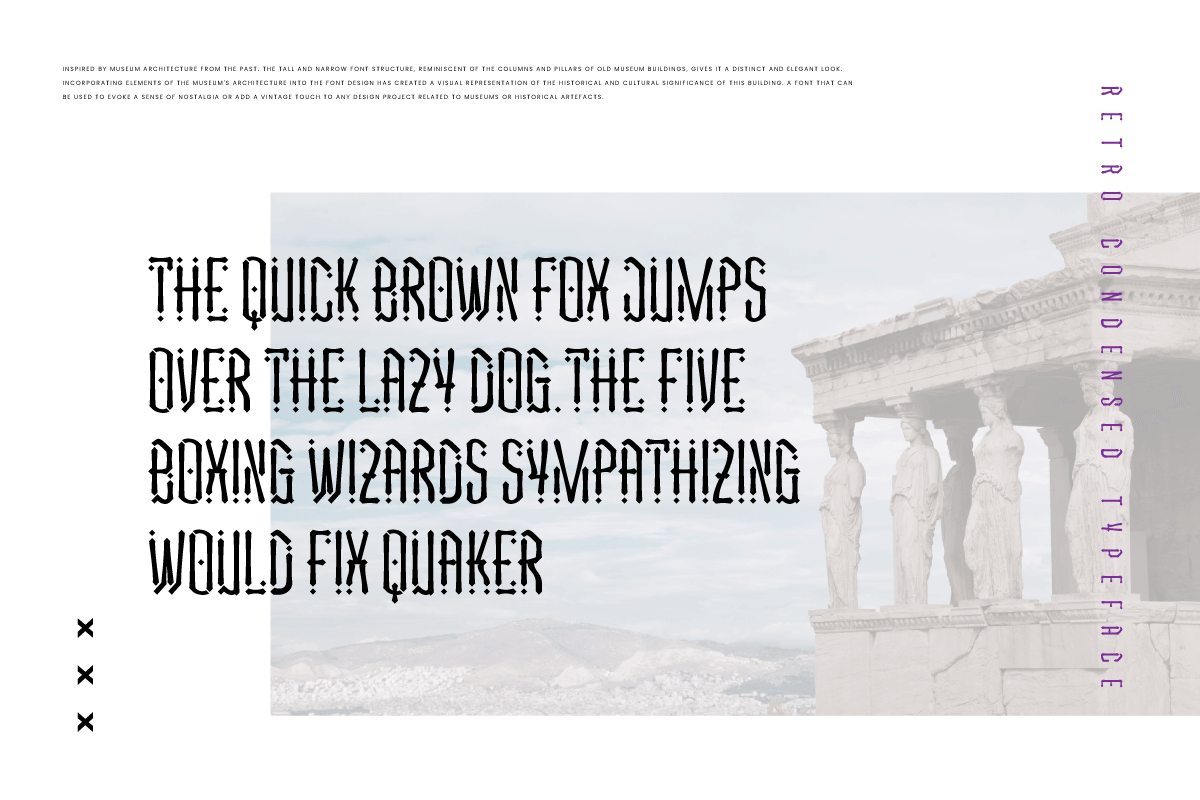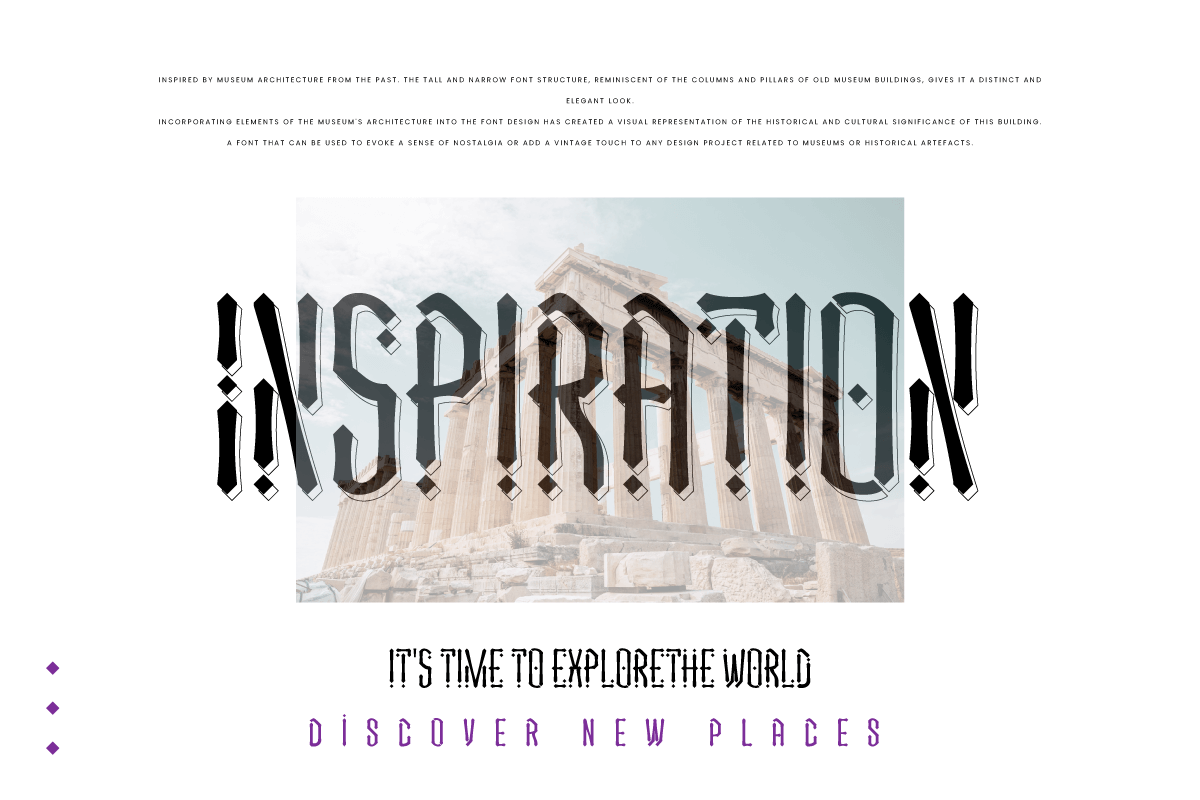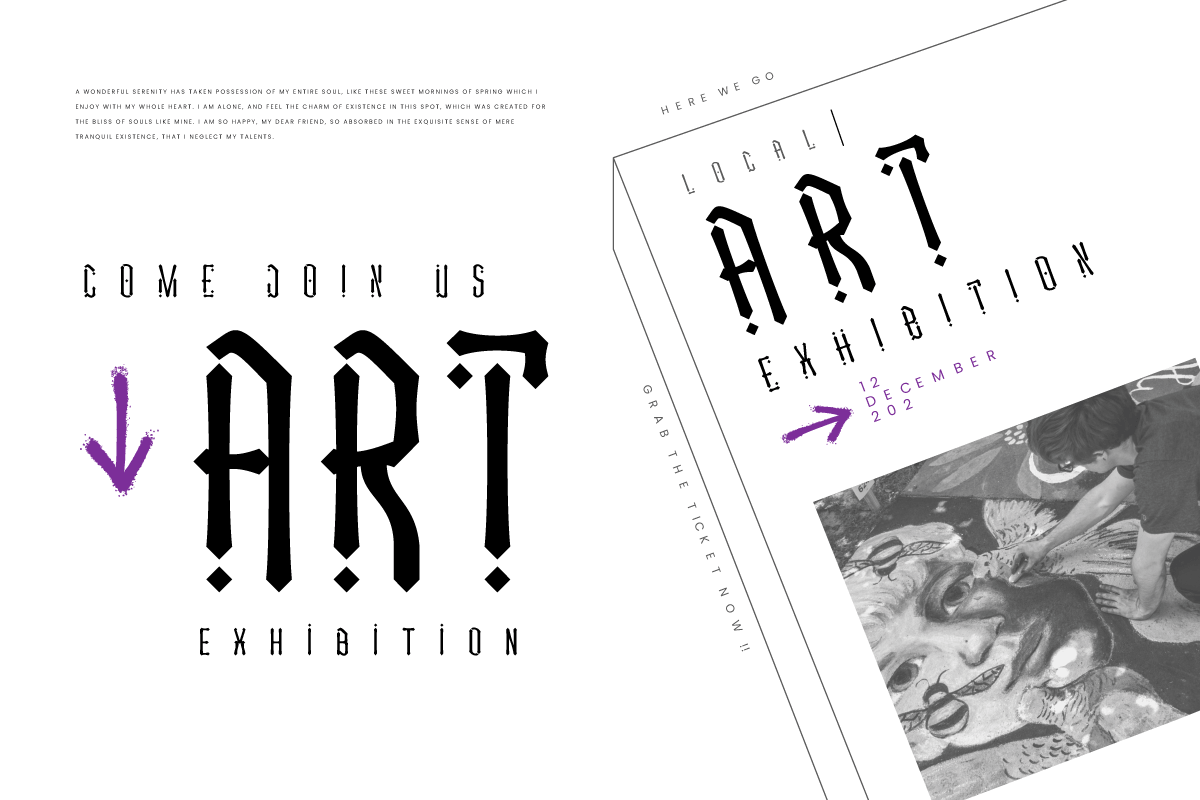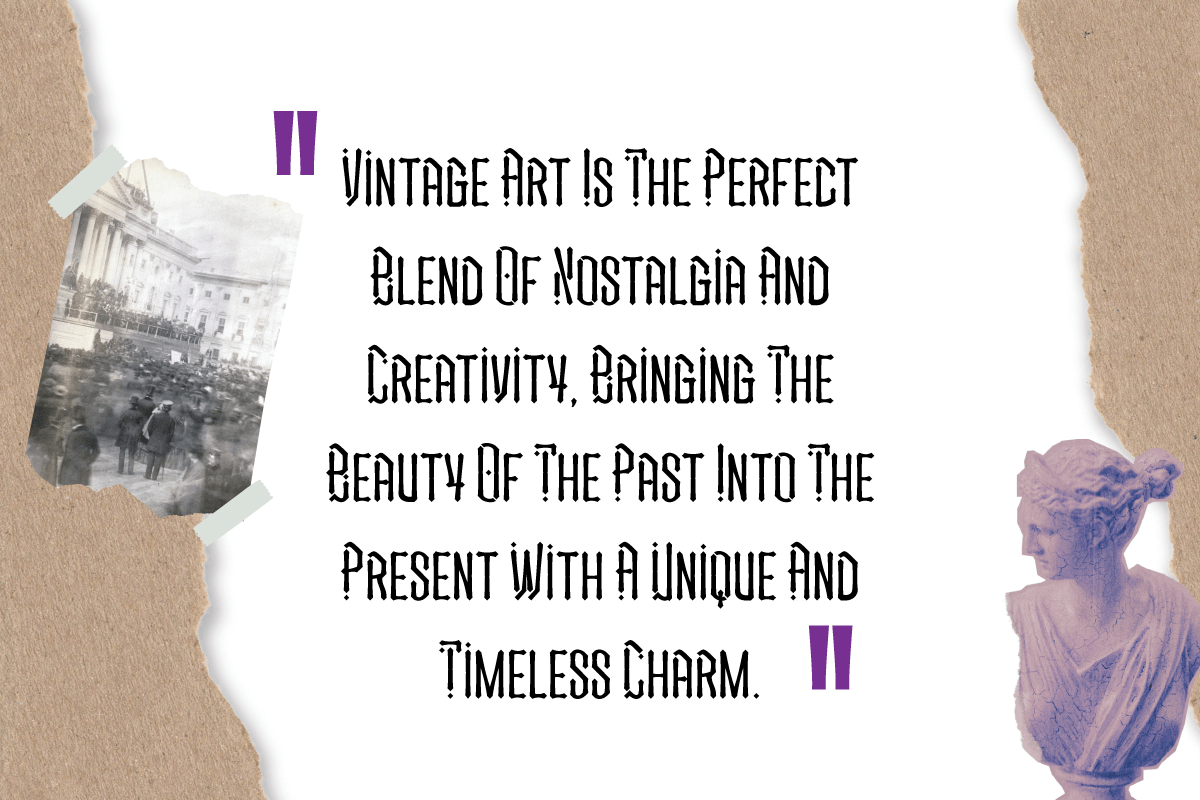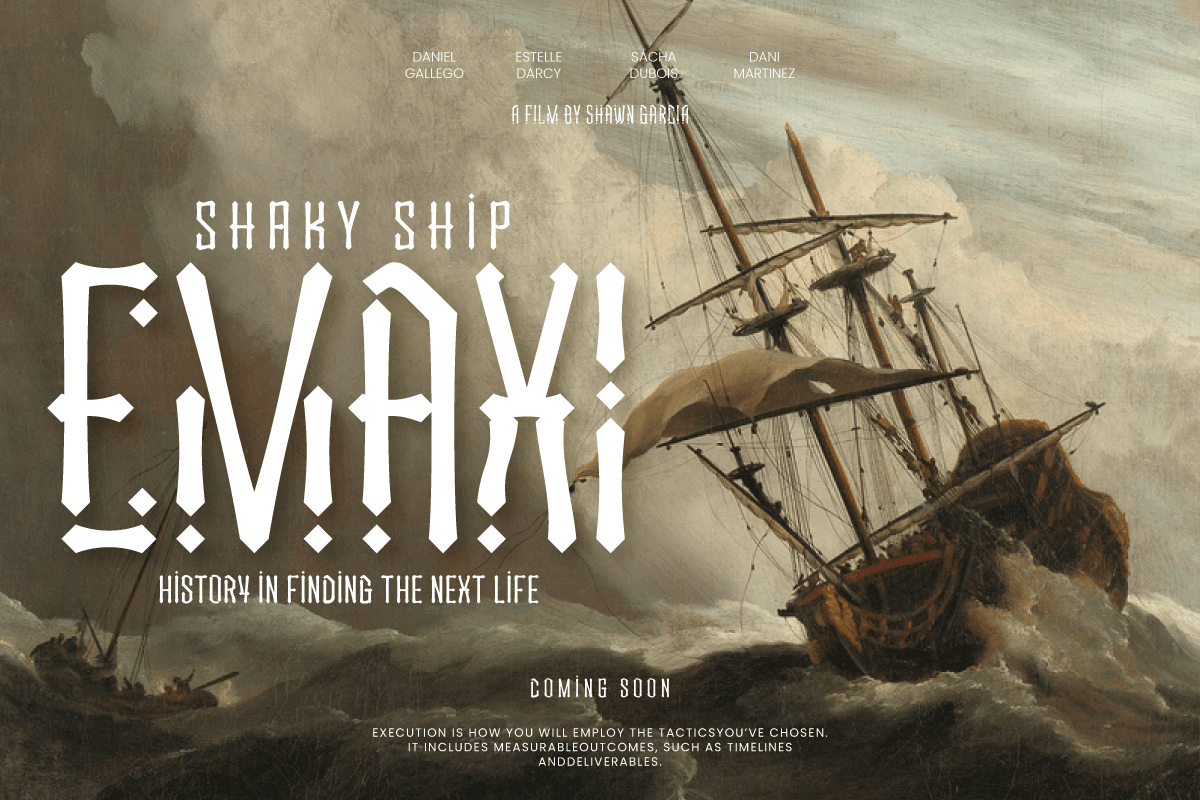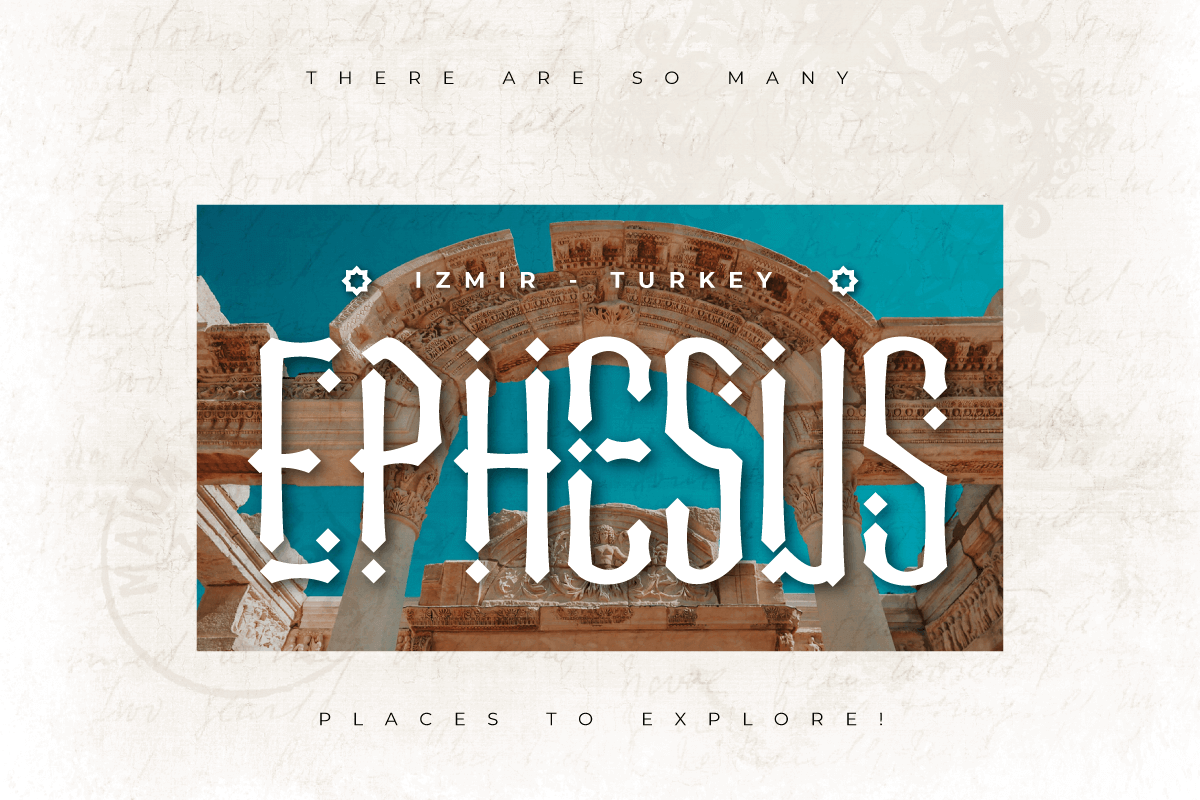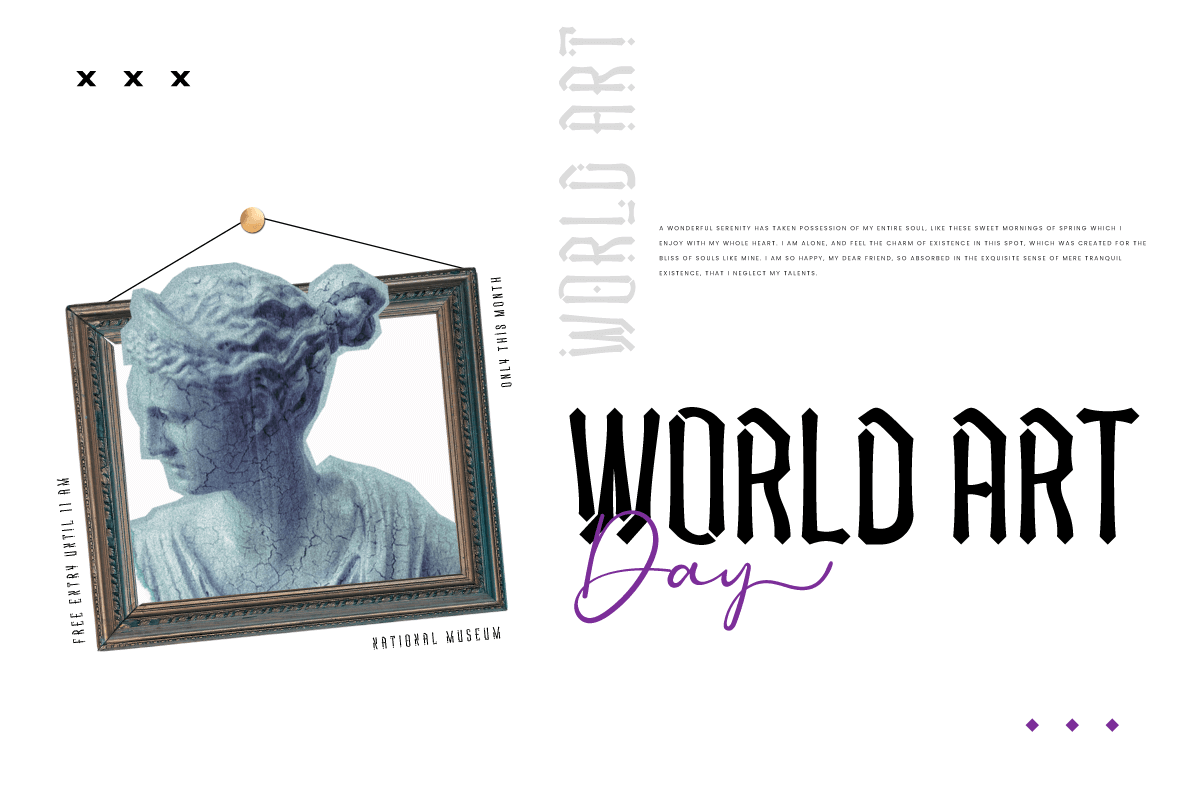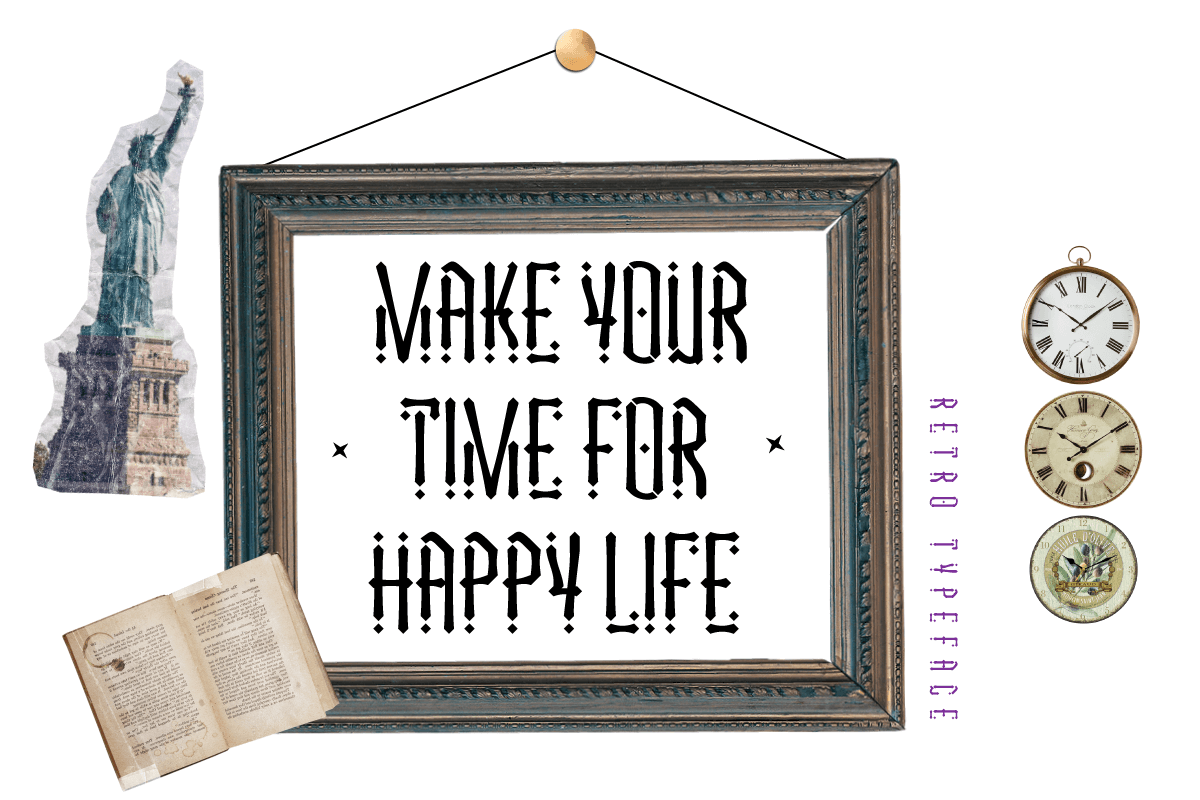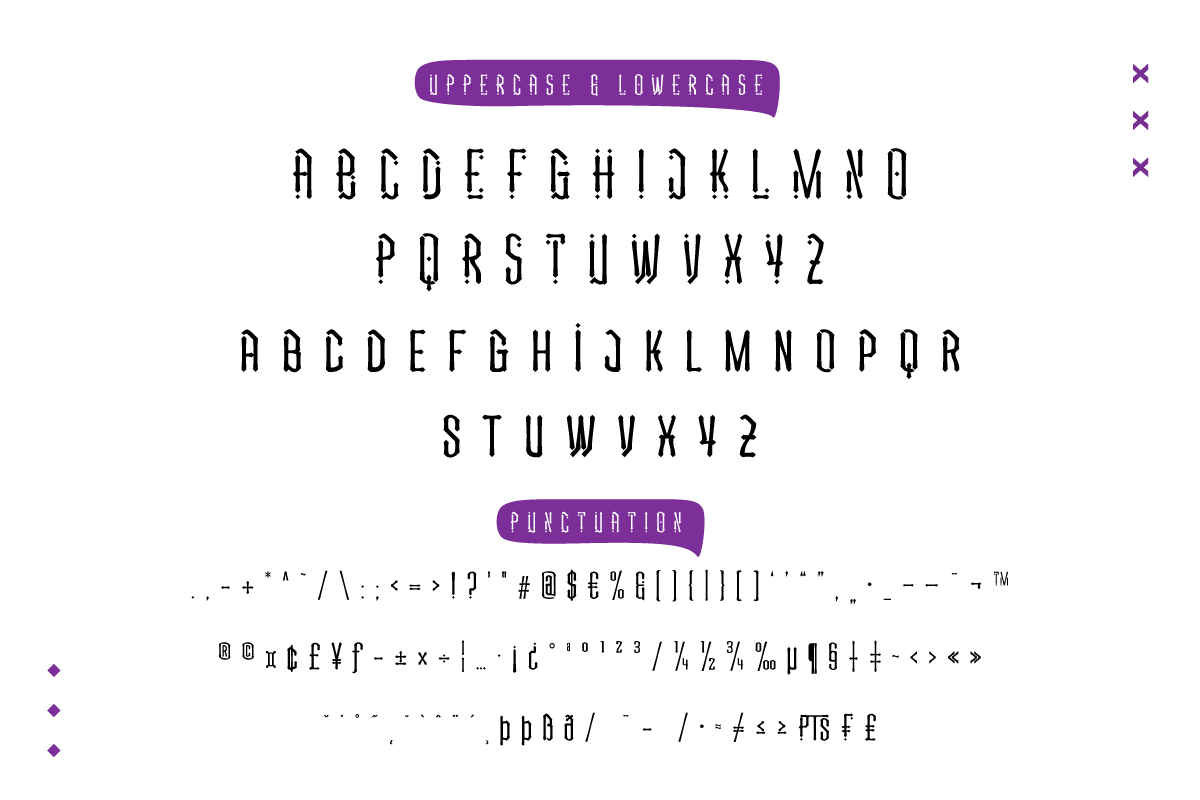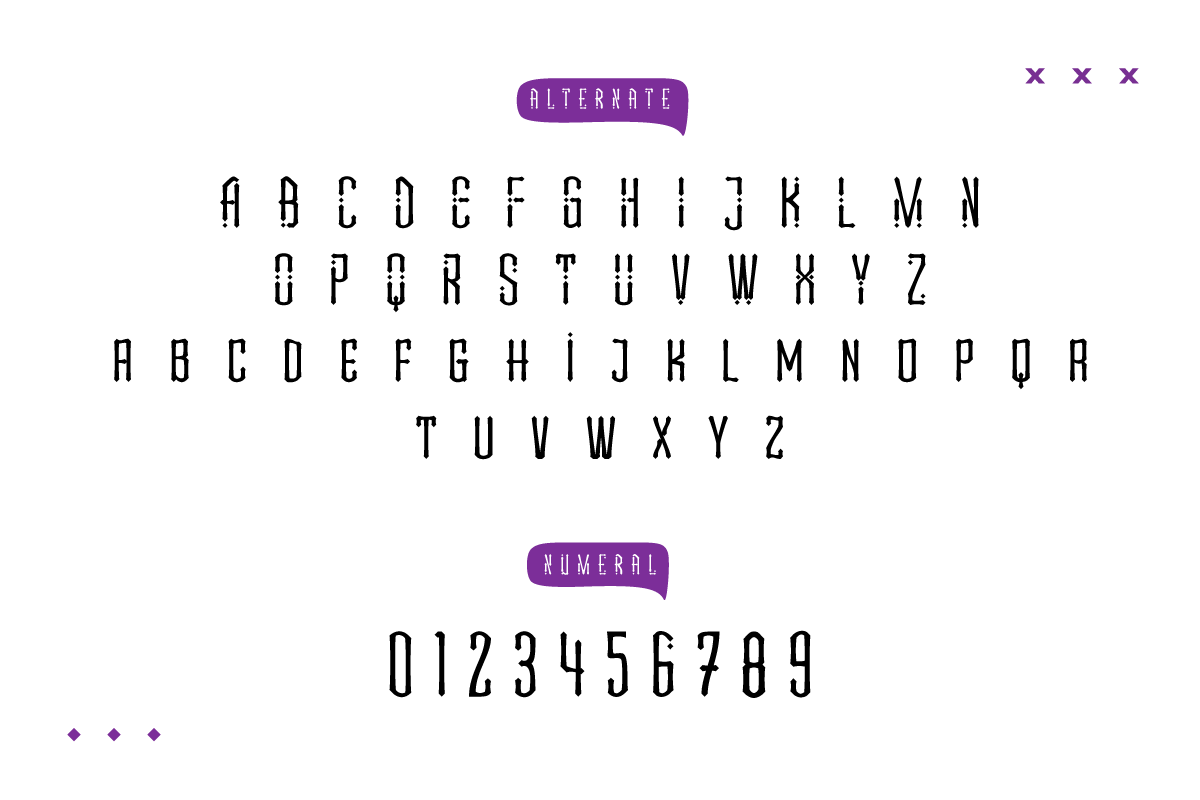
5. ZANKY – Retro Condensed Font
ZANKY – Retro Condensed Font
Introducing Zanky, the perfect solution for any project that requires a touch of retro, vintage, and classic display. With its unique condensed shape and stylistic set alternate, this font is the perfect addition to any design project.
Zanky’s unique condensed shape ensures that it stands out in any design project, making it the perfect choice for anything from logos to posters. Additionally, its stylistic set alternate feature provides even more design flexibility, allowing you to create unique and eye-catching designs with ease.
Whether you’re working on a vintage-inspired project or simply looking to add a touch of classic display to your design, Zanky is the perfect font for the job. Try it out today and see the difference it can make in your designs.